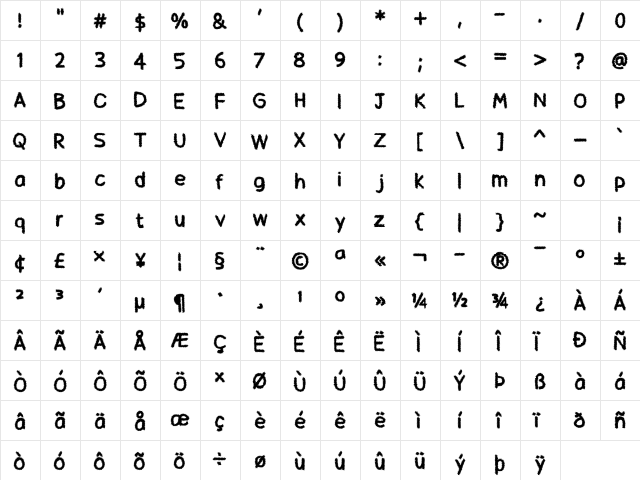
Hairy Beard Regular
Design Context for Hairy Beard Typeface
Hairy Beard takes a measured approach to typography — its balanced proportions and neutral character make it a reliable workhorse for both digital and print work.